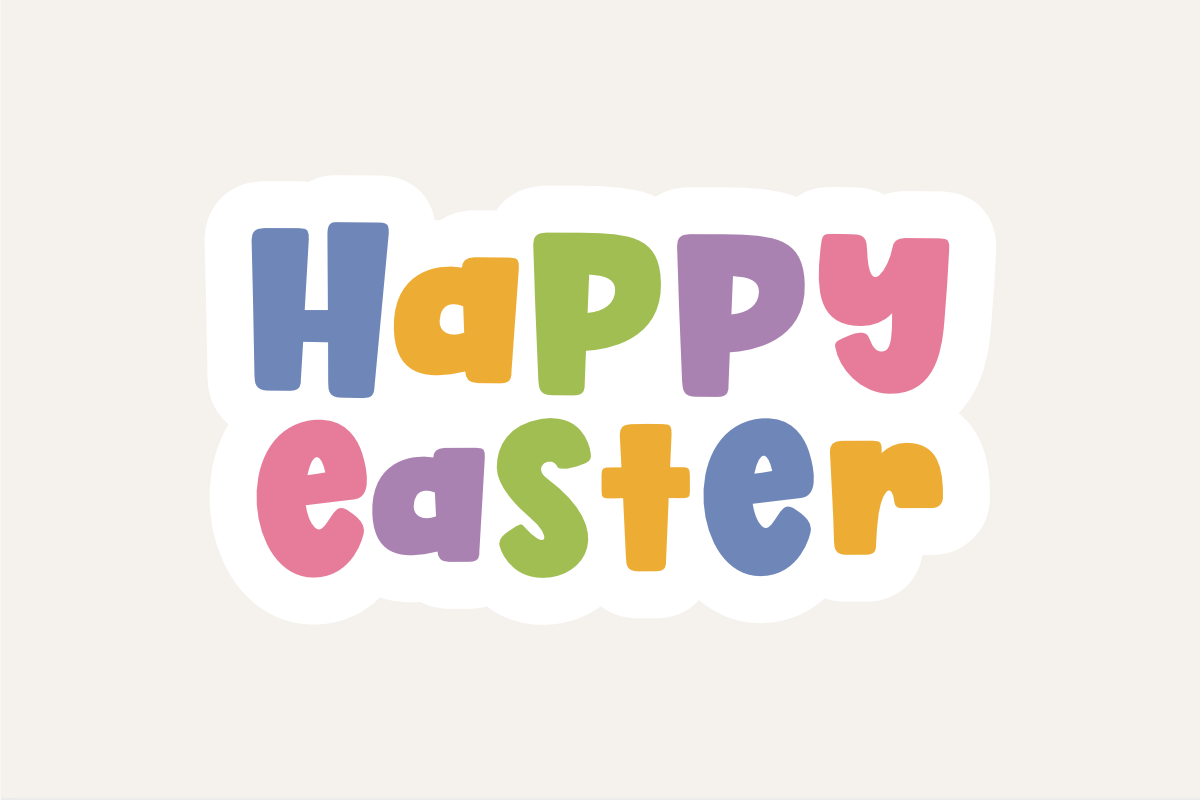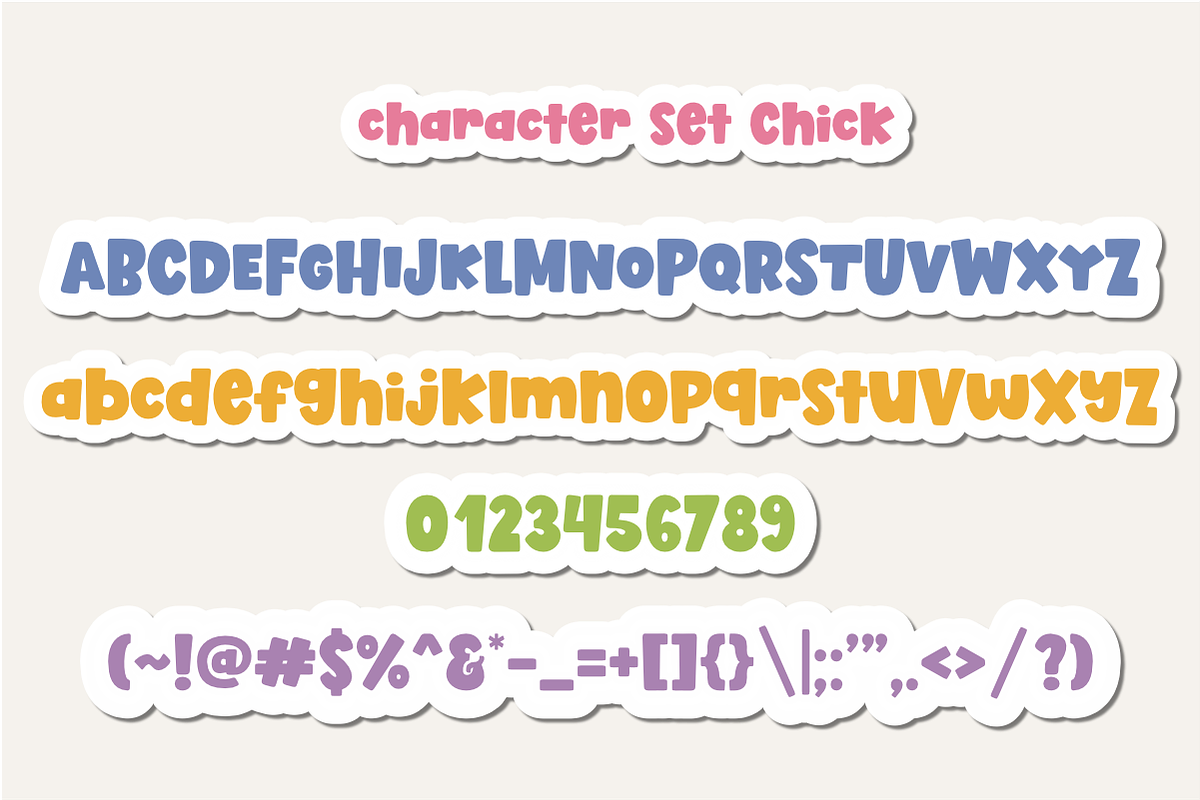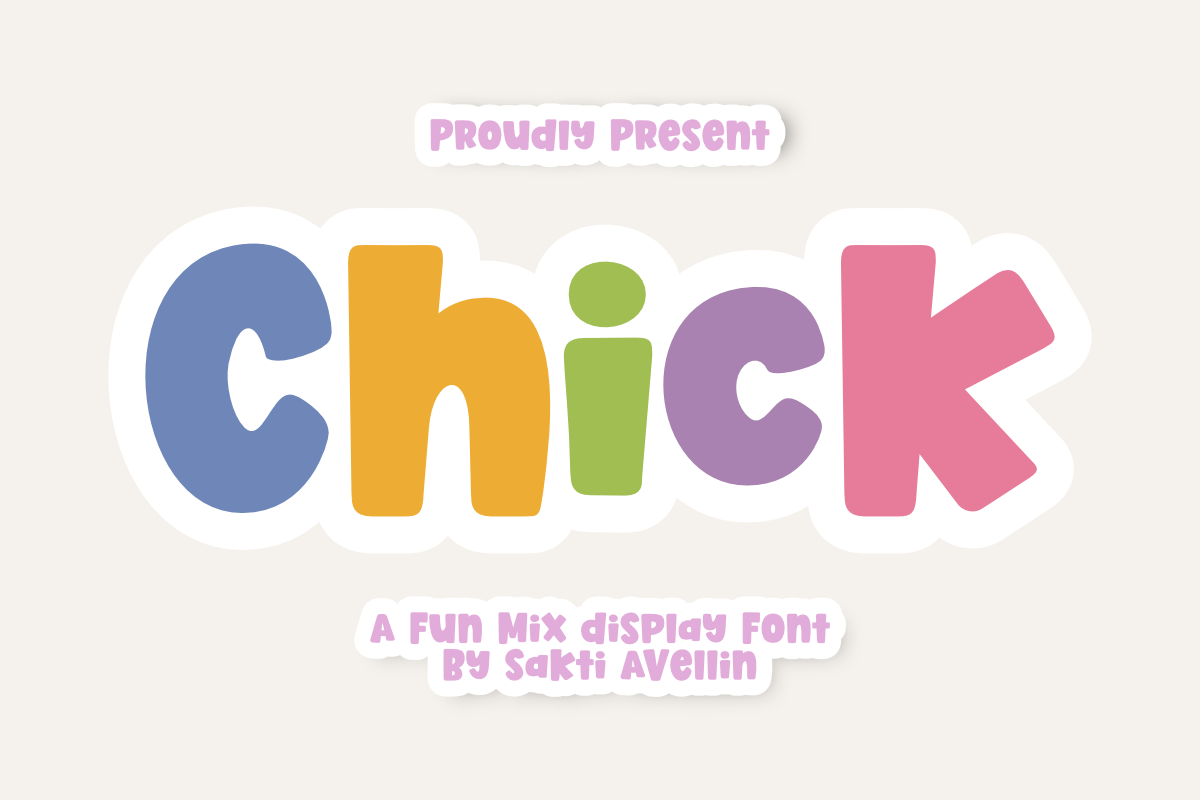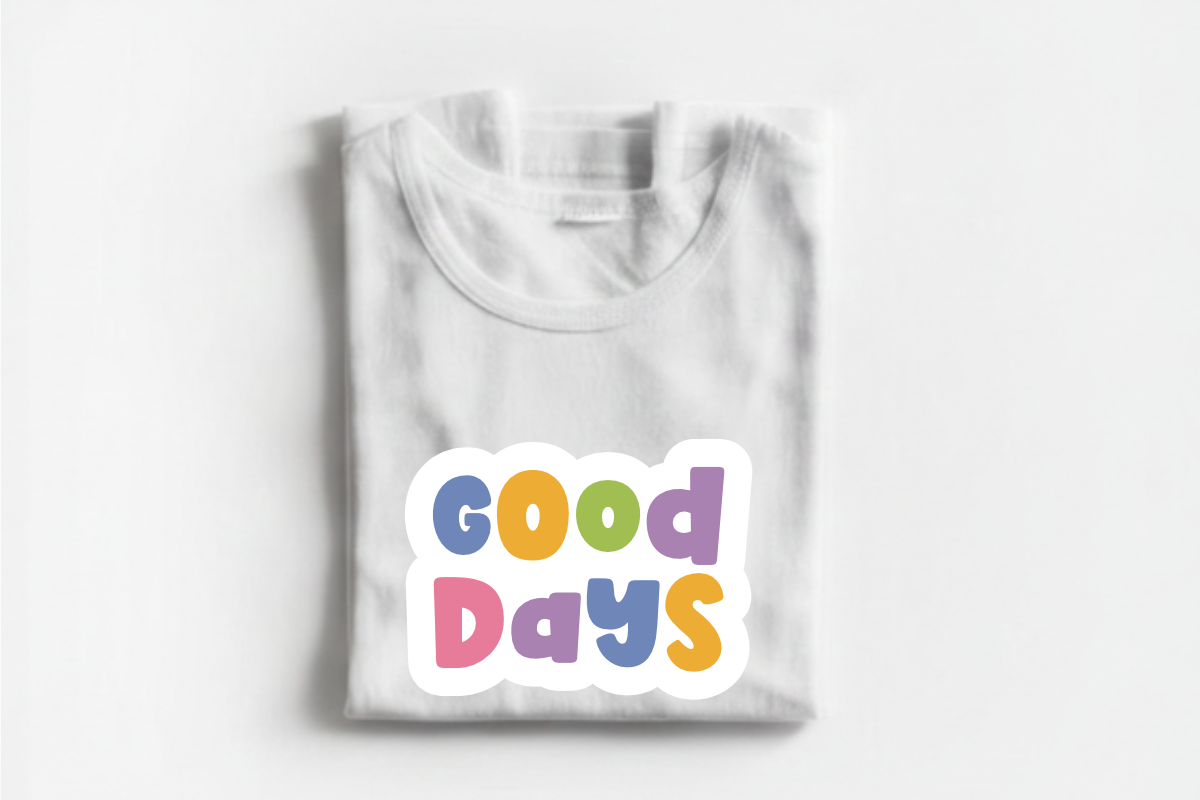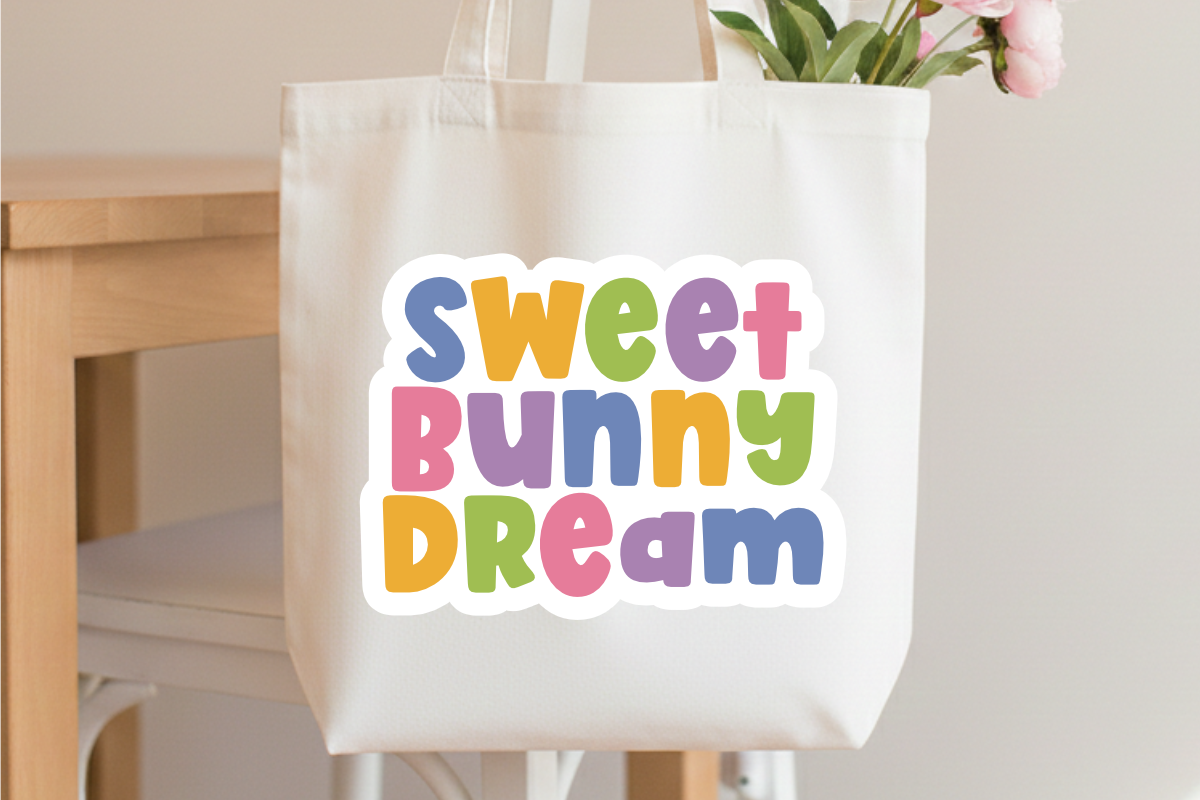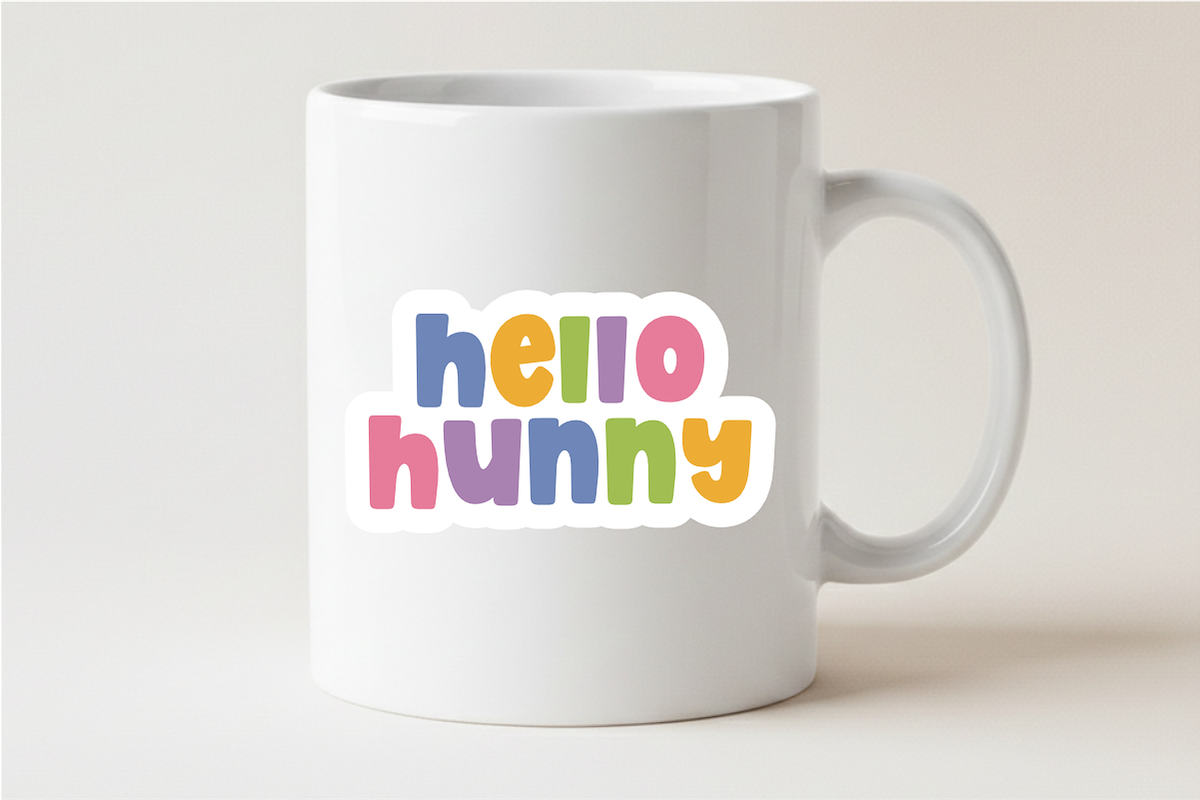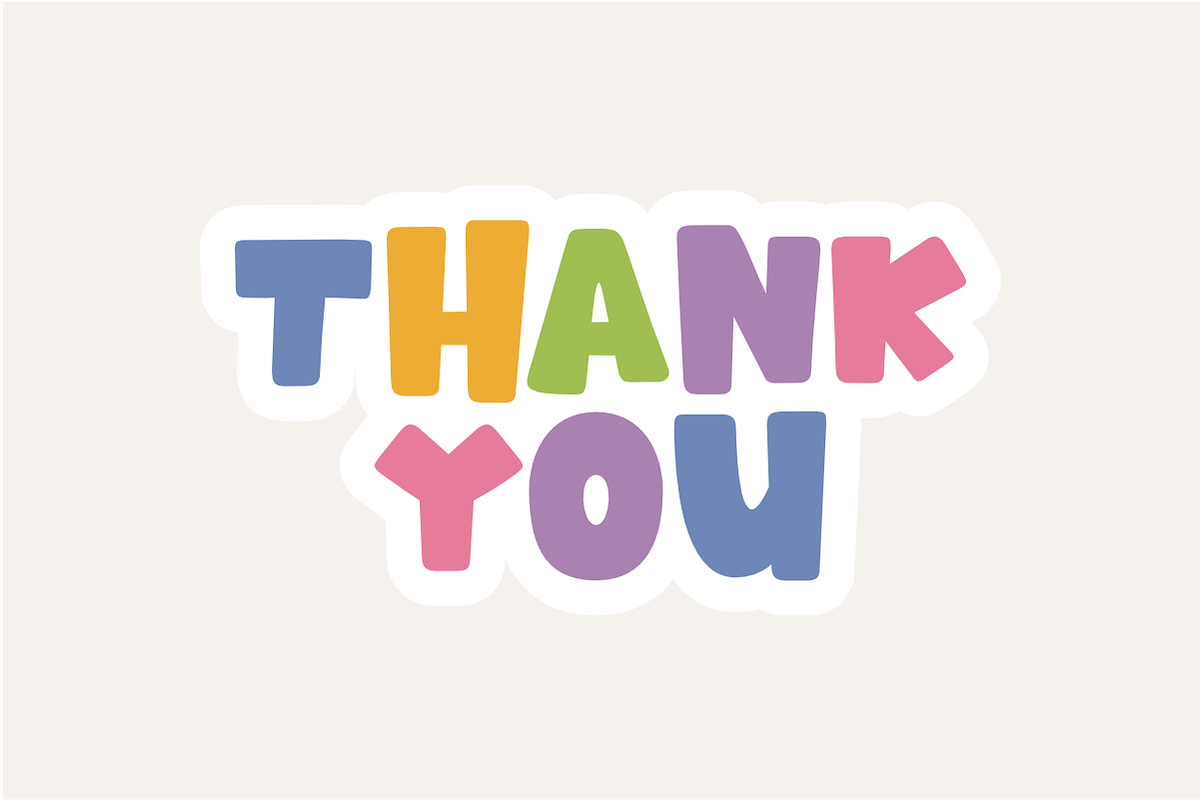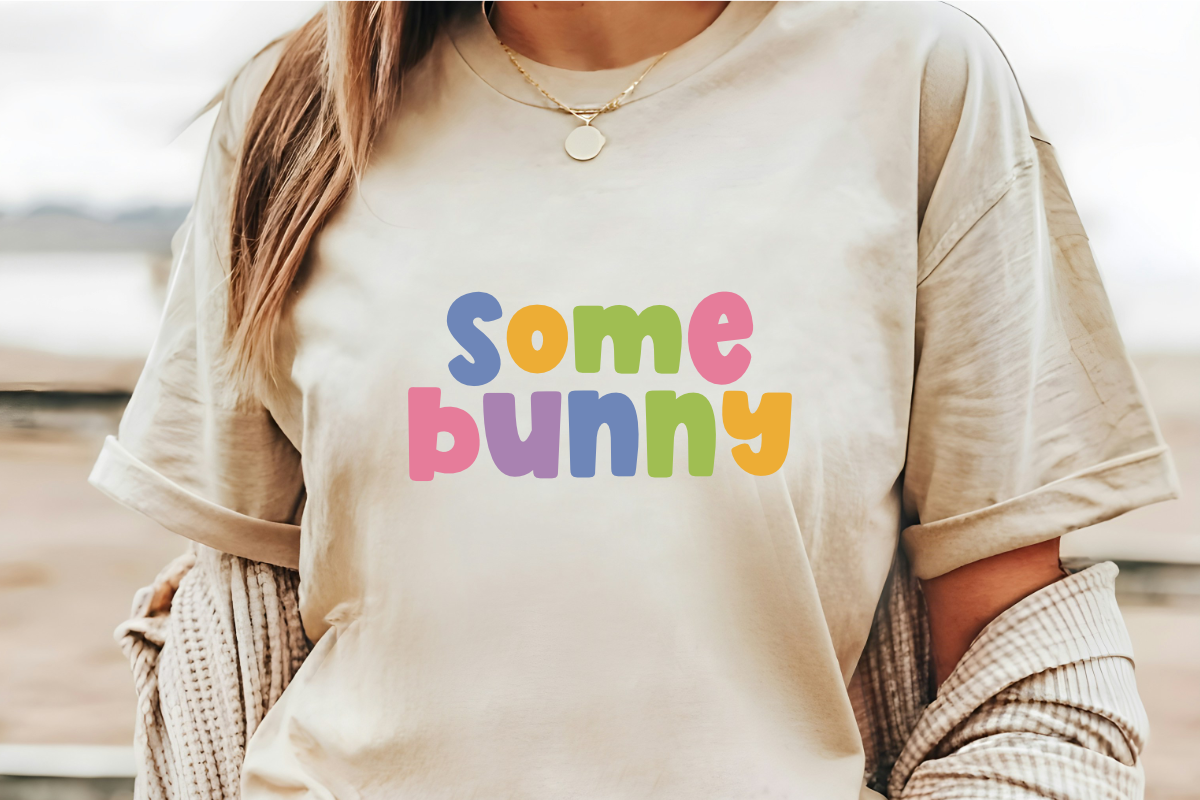
Chick - Fun Mix Display Font
Chick is a fun mix display font designed to bring a sense of joy and playfulness to your creative projects. This bold bubbly typeface features rounded, friendly letterforms that are perfect for children's branding, colorful stickers, nursery decor, and birthday invitations. Its energetic and cute aesthetic makes it an ideal choice for school projects, toy packaging, and cheerful social media graphics. Whether you are designing for a playground event or a whimsical book cover, Chick adds a lively and handcrafted touch that instantly stands out.